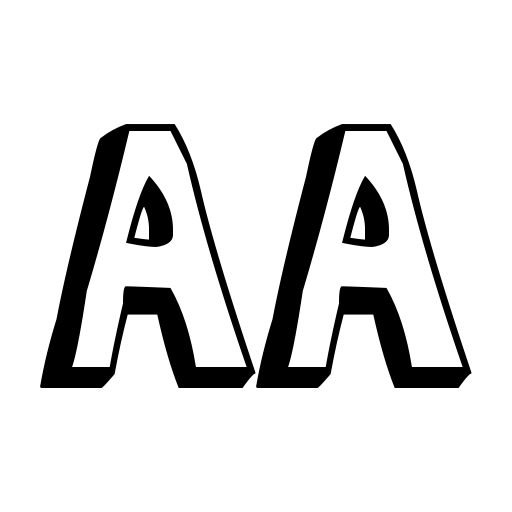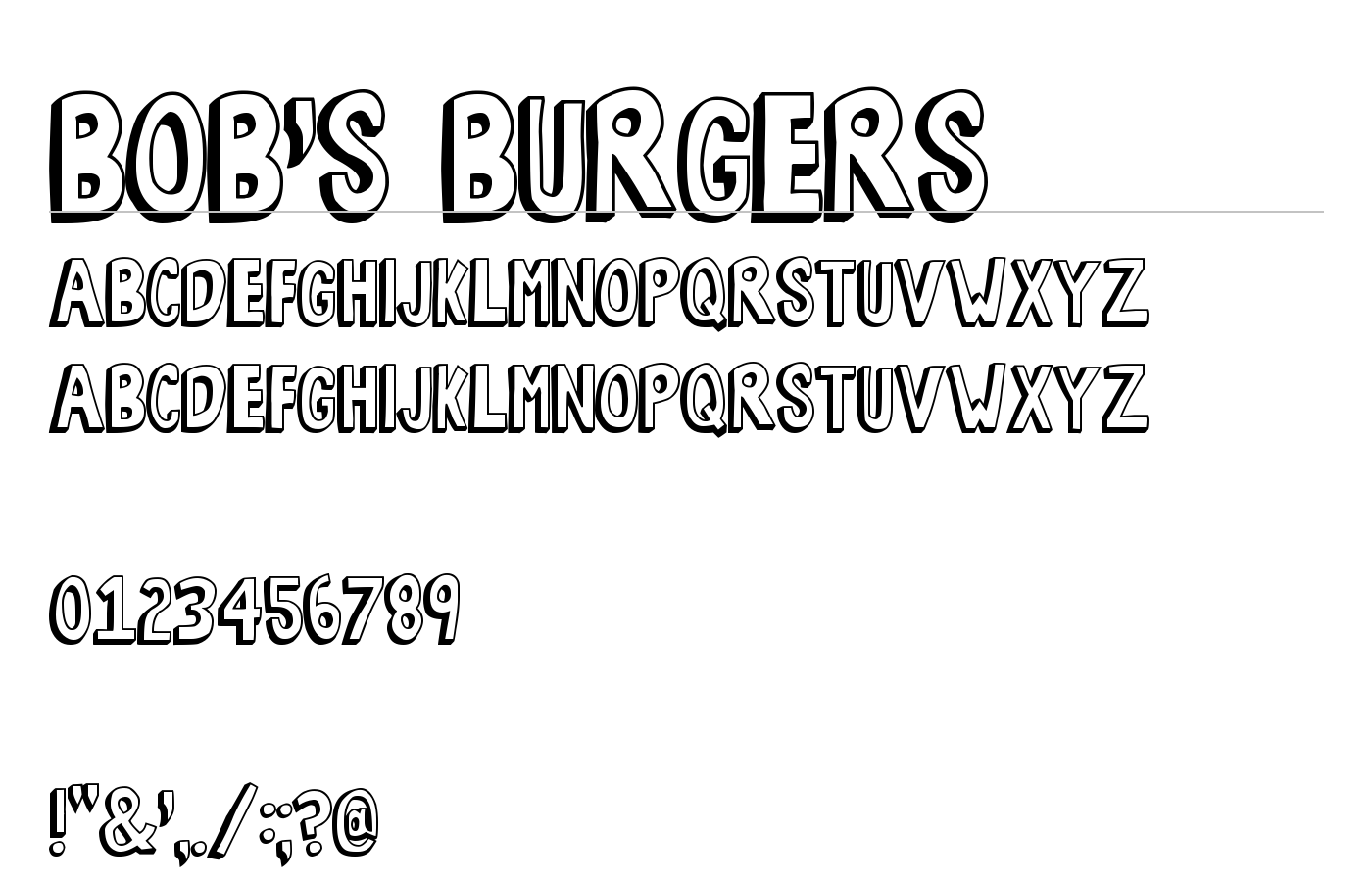
Bob's Burgers Font is a playful and bold sans serif typeface characterized by its thick, slightly irregular letterforms and a casual, hand-drawn feel. Its upright, rounded characters with subtle shadows create a friendly and approachable style, perfect for conveying a fun and informal atmosphere. This font works well for logos, posters, and packaging where a lively, whimsical vibe is desired, making it especially suitable for entertainment and casual dining brands.
Bob's Burgers Font